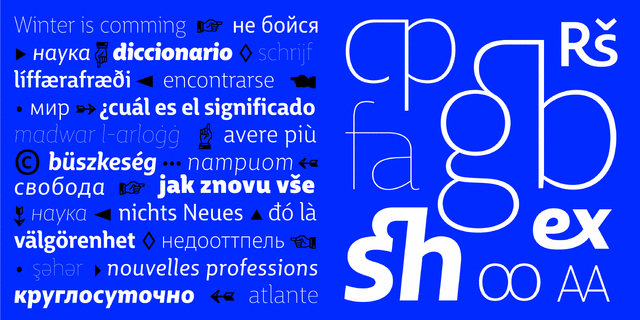
BigCity Grotesque, like other humanist sans serifs, is based on the structures of old-style serifs. Ilya Ruderman created the first version of this typeface for Bol’shoi Gorod magazine (Big City). BigCity Grotesque was the first magazine sans serif with Cyrillic ligatures. It was honored in 2009 in the international competition, Modern Cyrillic 2009.
In the latest version, by Olga Pankova, the shapes of the letters have been updated, and there are new upright and italic styles, small capitals and new ligatures and non-alphabetic symbols.
BigCity Grotesque Pro, thanks to the wide range of weights and styles that it offers, has become a serious tool for meeting all kinds of typographical demands: from large displays to the most finicky typesetting.